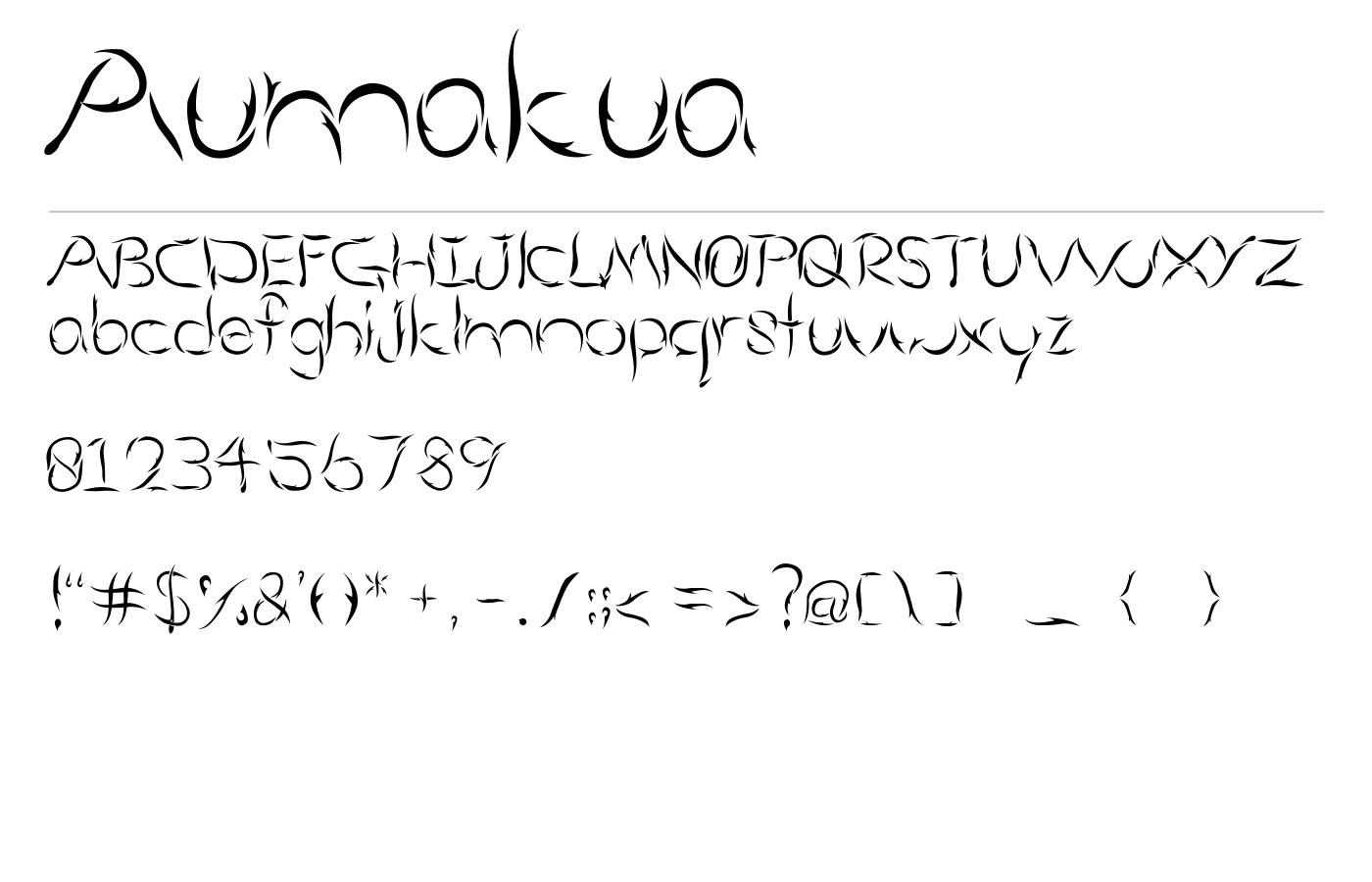
Aumakua is a decorative, script-inspired font with sharp, organic strokes that give it an exotic and mystical feel. Its thin, delicate letterforms with unique pointed accents make it ideal for creative and artistic projects seeking a distinctive, ethereal vibe. This font works best in logos, headers, and designs where a dramatic and unconventional style is desired.
Aumakua Font